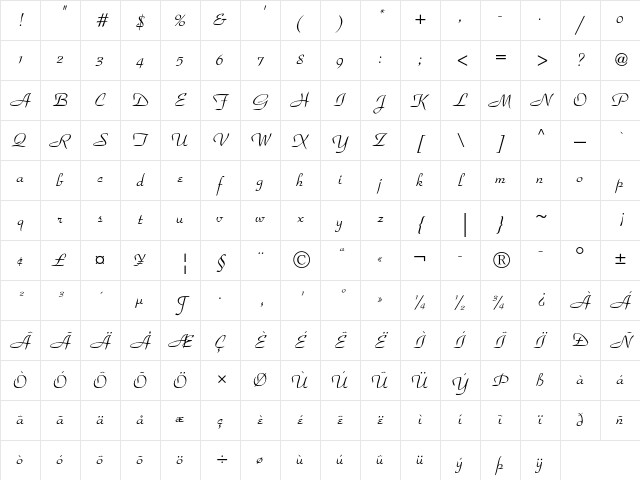
Park Avenue Std Medium
Designer: Robert E. Smith
Complete Park Avenue Std Medium glyph index. Displaying only characters natively supported by Park Avenue Std Medium font.
Design Context for Park Avenue Std
Park Avenue Std is a composed and adaptable typeface that performs quietly and consistently across a wide range of design contexts.